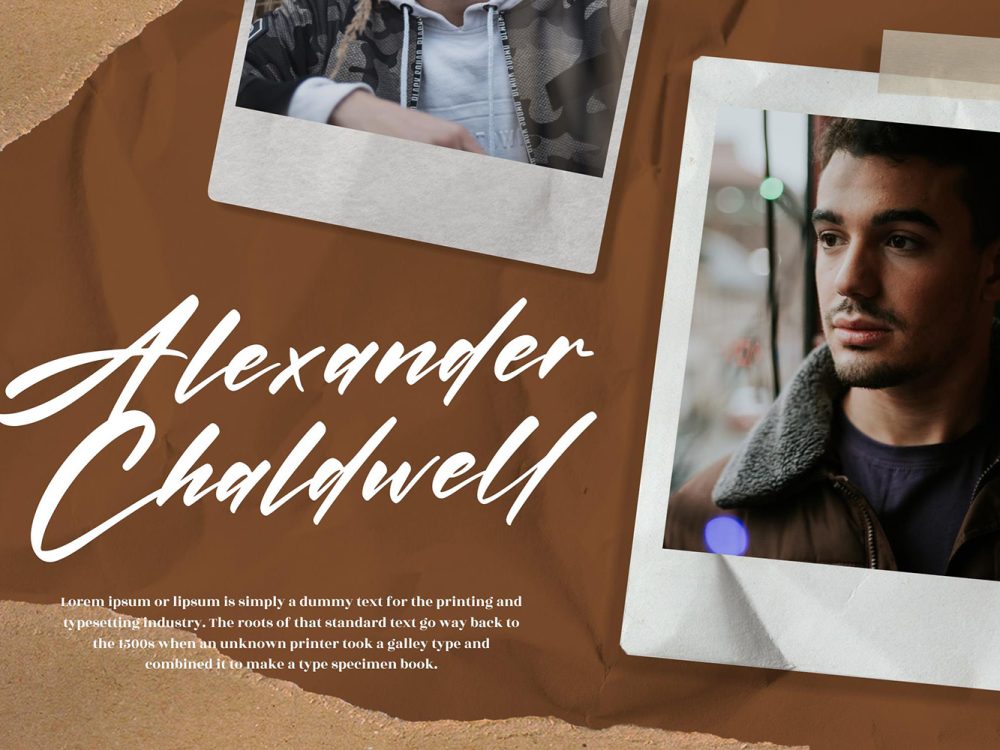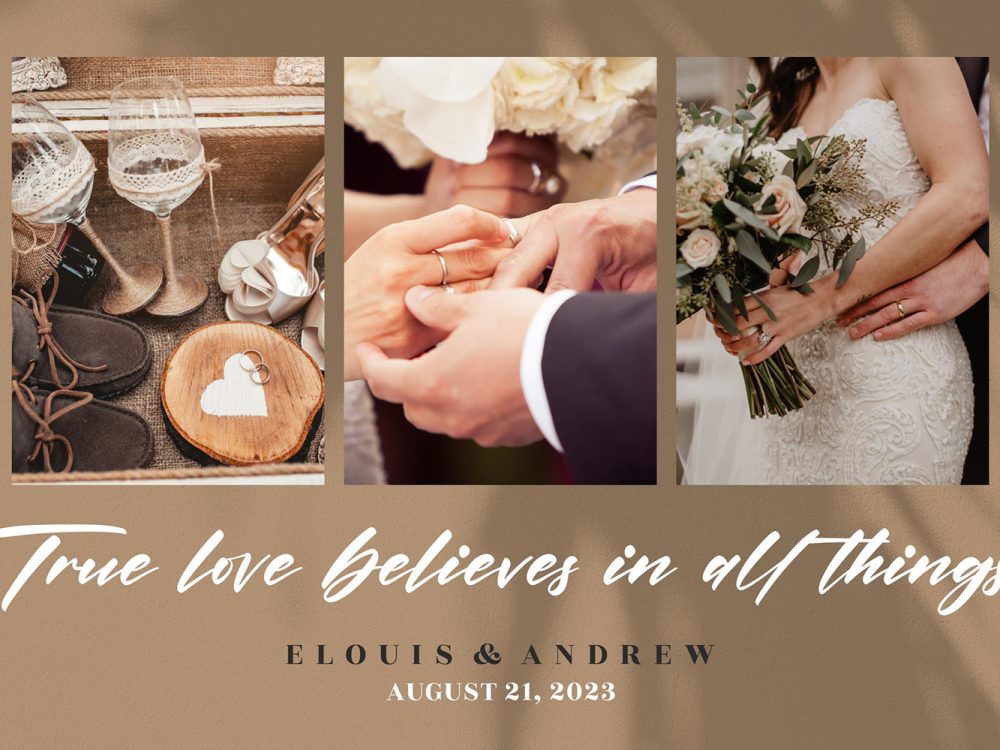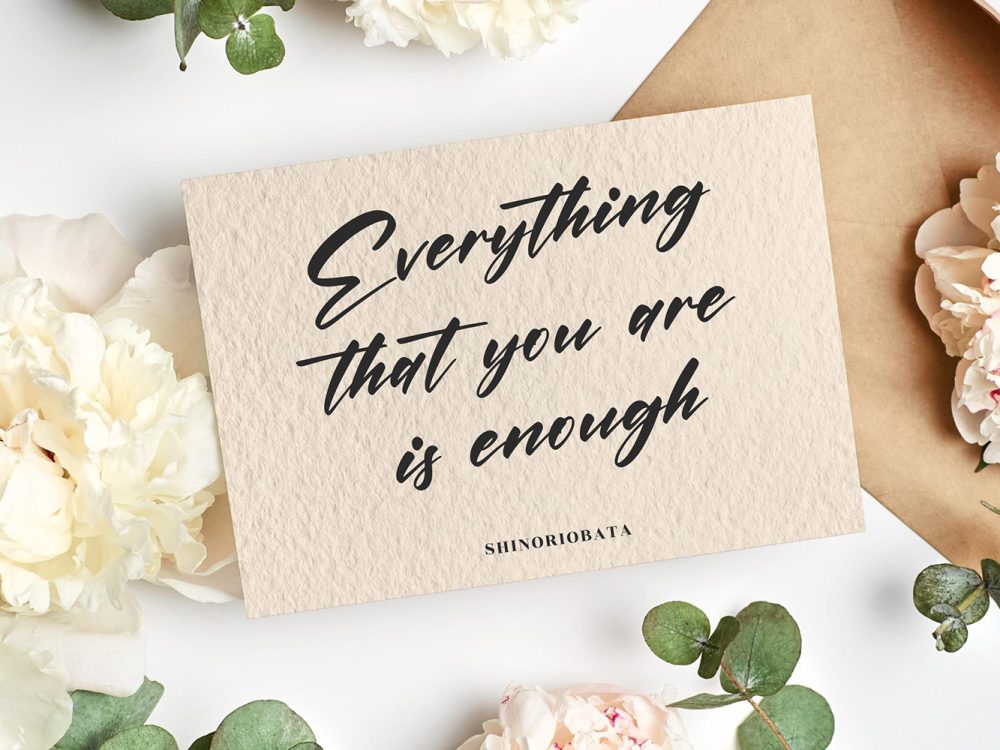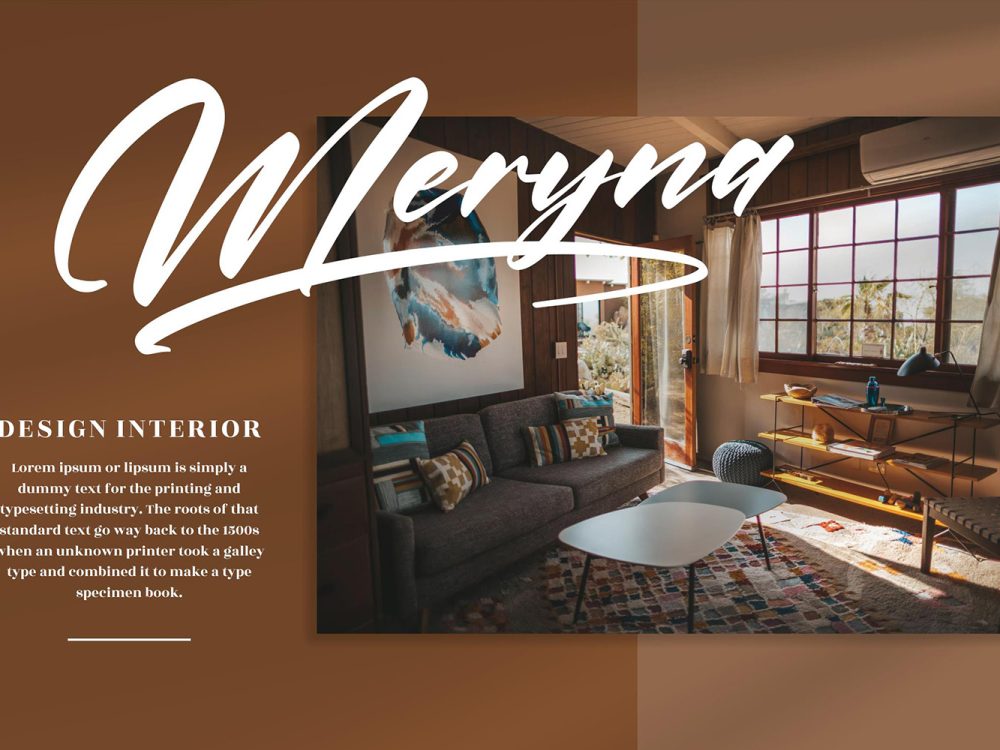
Victorian Free Font is a thin lettered and graceful script font. It will add a luxury spark to any design project that you wish to create. If you like it don’t forget to check out the full version.